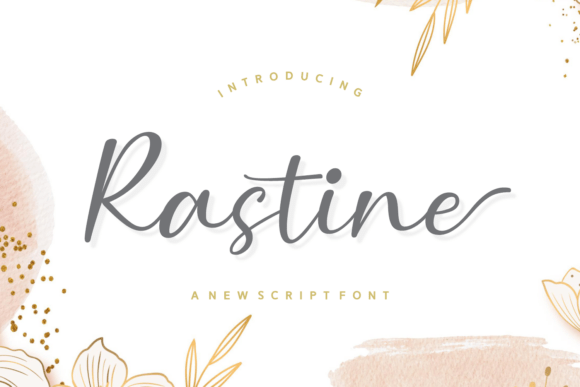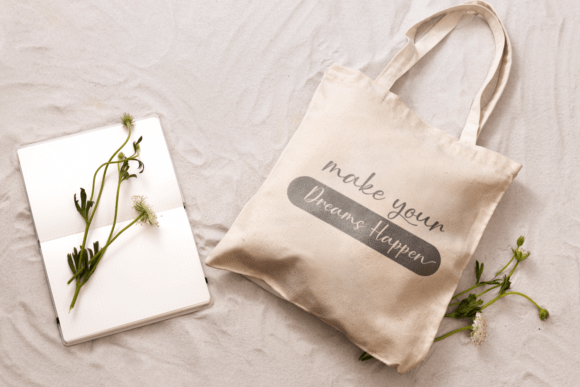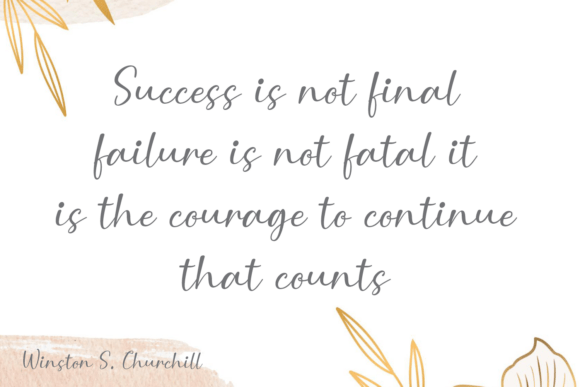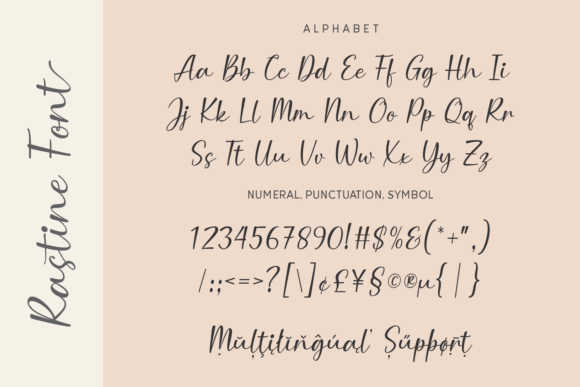
Rastine Font: Elegant Script for Wedding Invitations & Feminine Branding
About the Rastine Font
Make a bold statement with Rastine Font, a powerful and memorable font. Rastine is a graceful script font that exudes elegance through its delicate strokes and subtle flourishes. With a soft flow and sophisticated appearance, it’s ideal for wedding designs, branding, upscale packaging, and heartfelt quotes. Rastine adds a touch of luxury and femininity to any project, making it both timeless and trendy.
Rastine’s elegant, flowing forms work best in applications requiring a touch of high-end sophistication. It excels in short headlines, logos, and branding elements for luxury goods, invitations, and packaging where its delicate strokes add visual appeal. Avoid using Rastine for large blocks of body text or UI elements; its intricate details can become difficult to read at smaller sizes.
Pairing Rastine effectively requires considering its inherent delicacy. A clean, geometric sans-serif like Montserrat or a neutral serif such as Lato would provide a strong, legible counterpoint, preventing the design from feeling overly fussy. For a more playful yet refined look, consider pairing it with a casual script font, but ensure significant contrast in weight and size for optimal readability.
Rastine’s overall personality is sophisticated and feminine, conveying a sense of timeless elegance and quiet luxury. It’s best suited for brands and projects targeting a discerning audience appreciative of refined aesthetics.
Rastine Font Usage Examples
Rastine Font Example